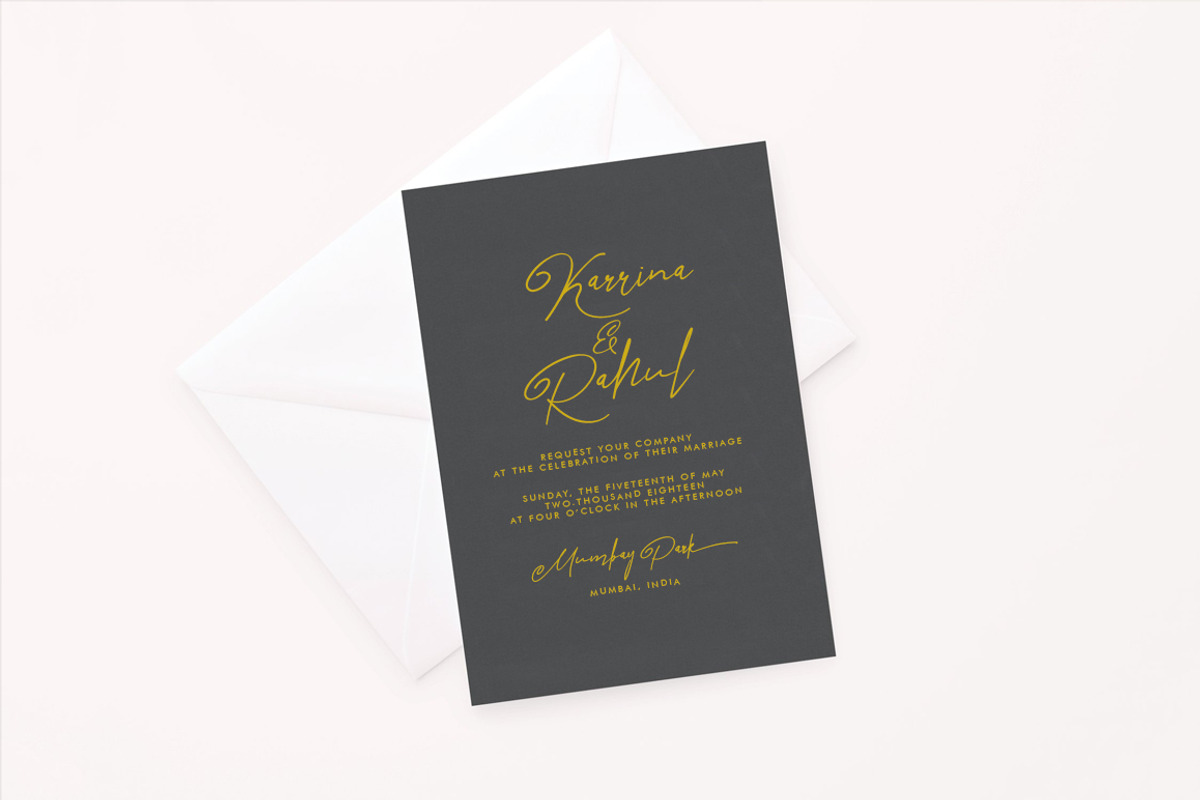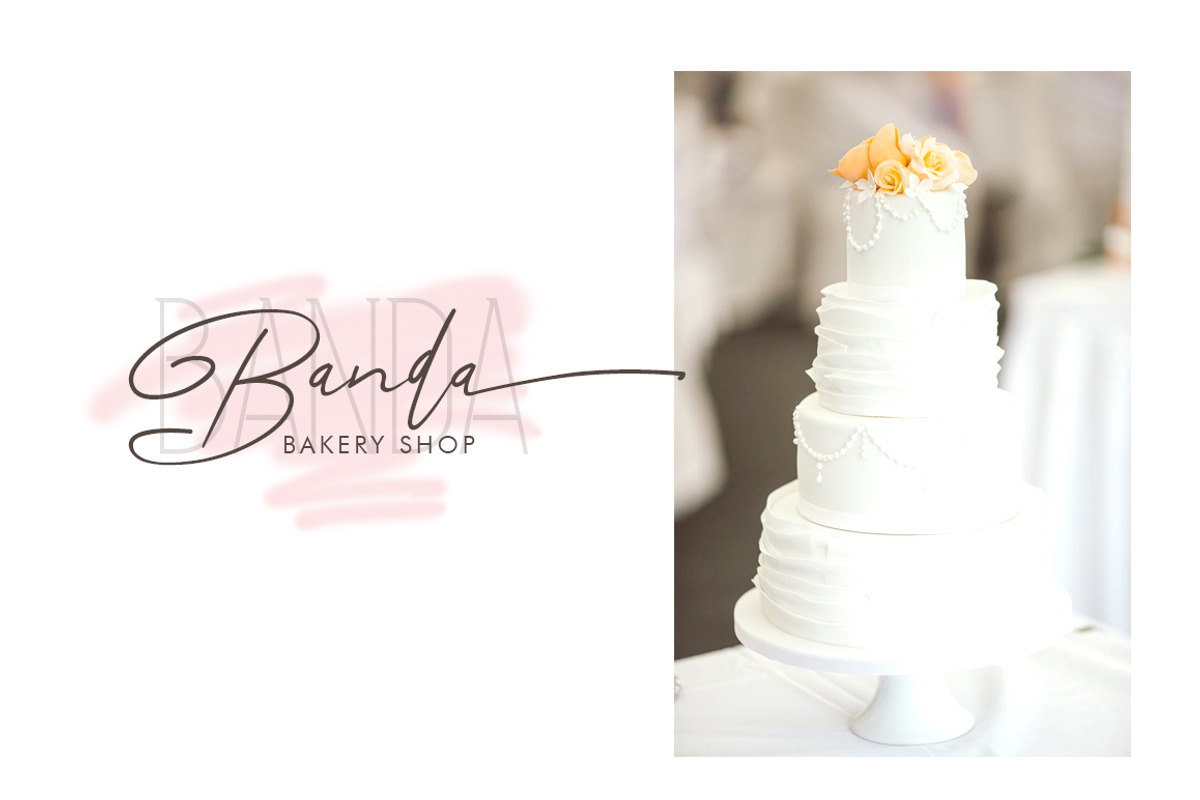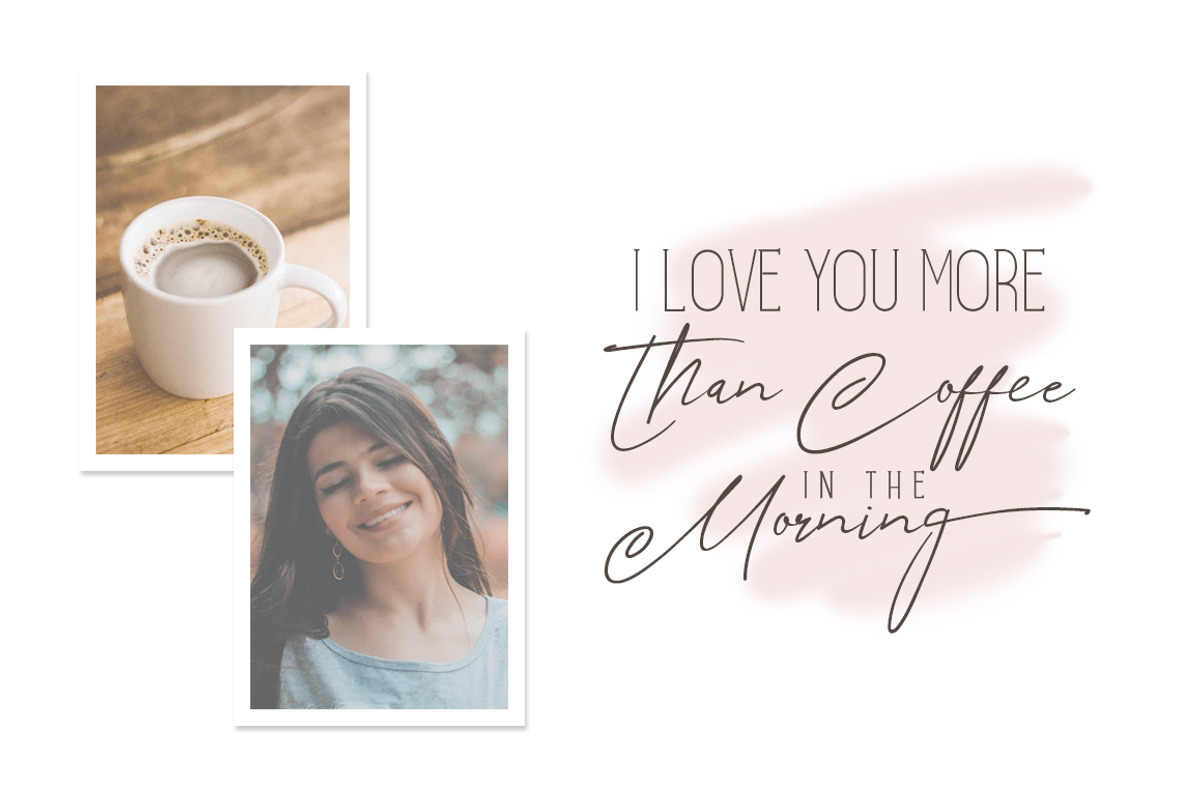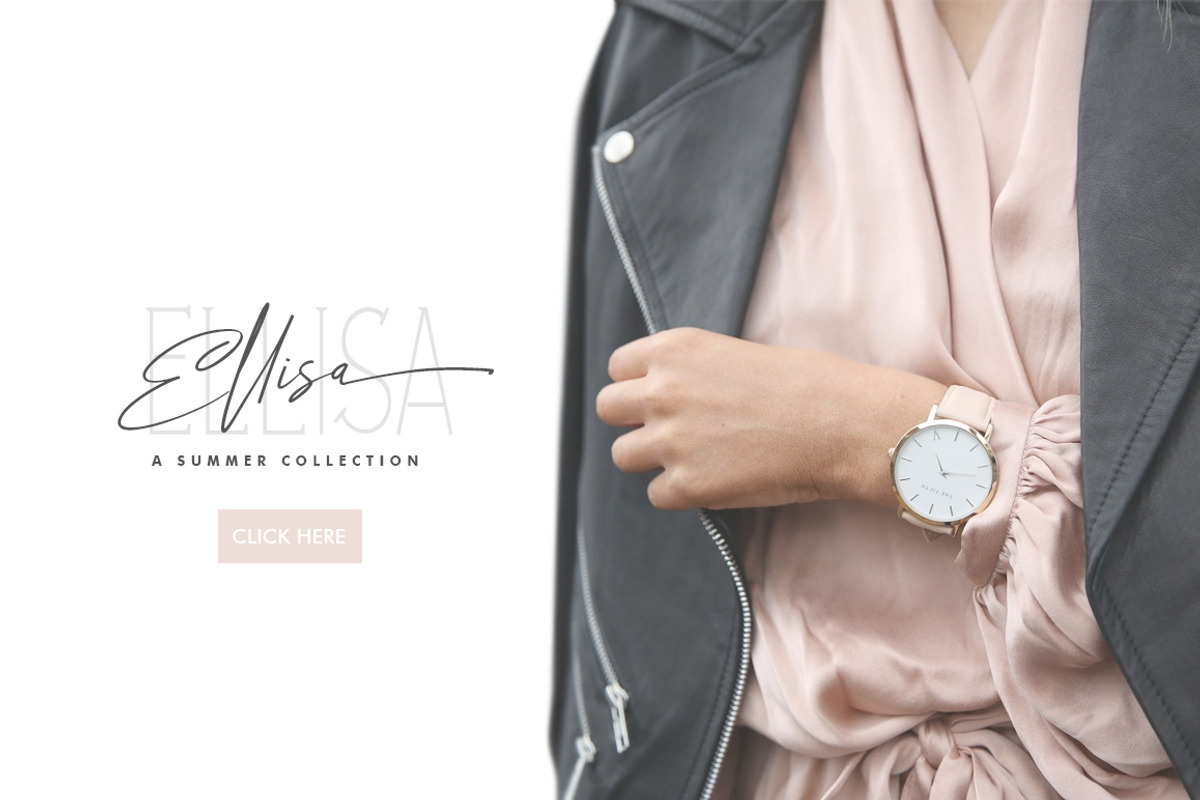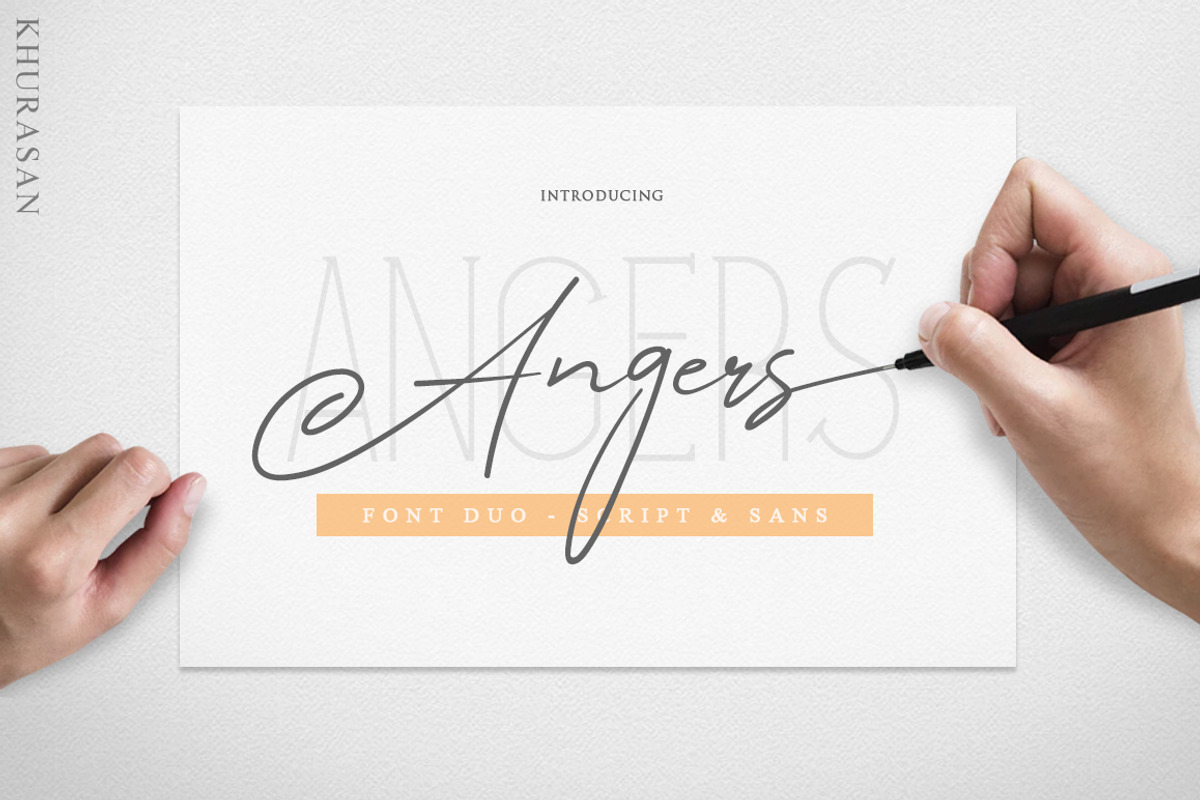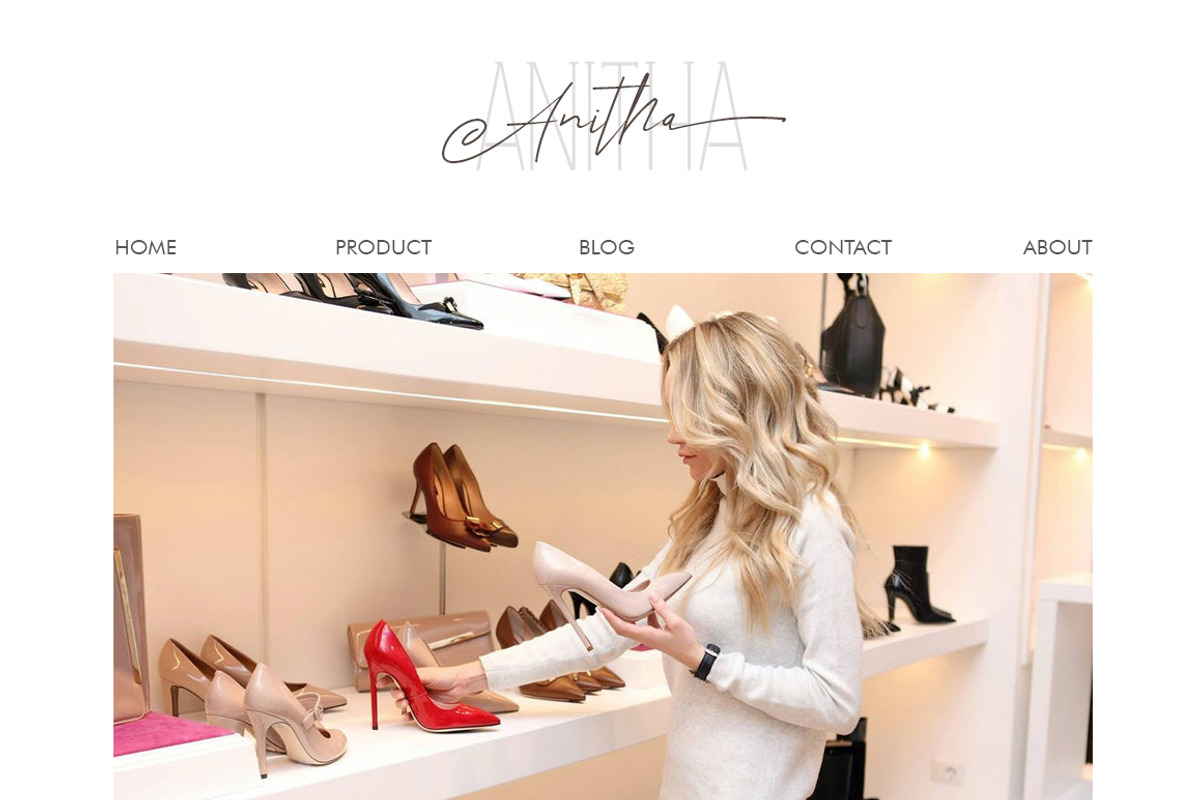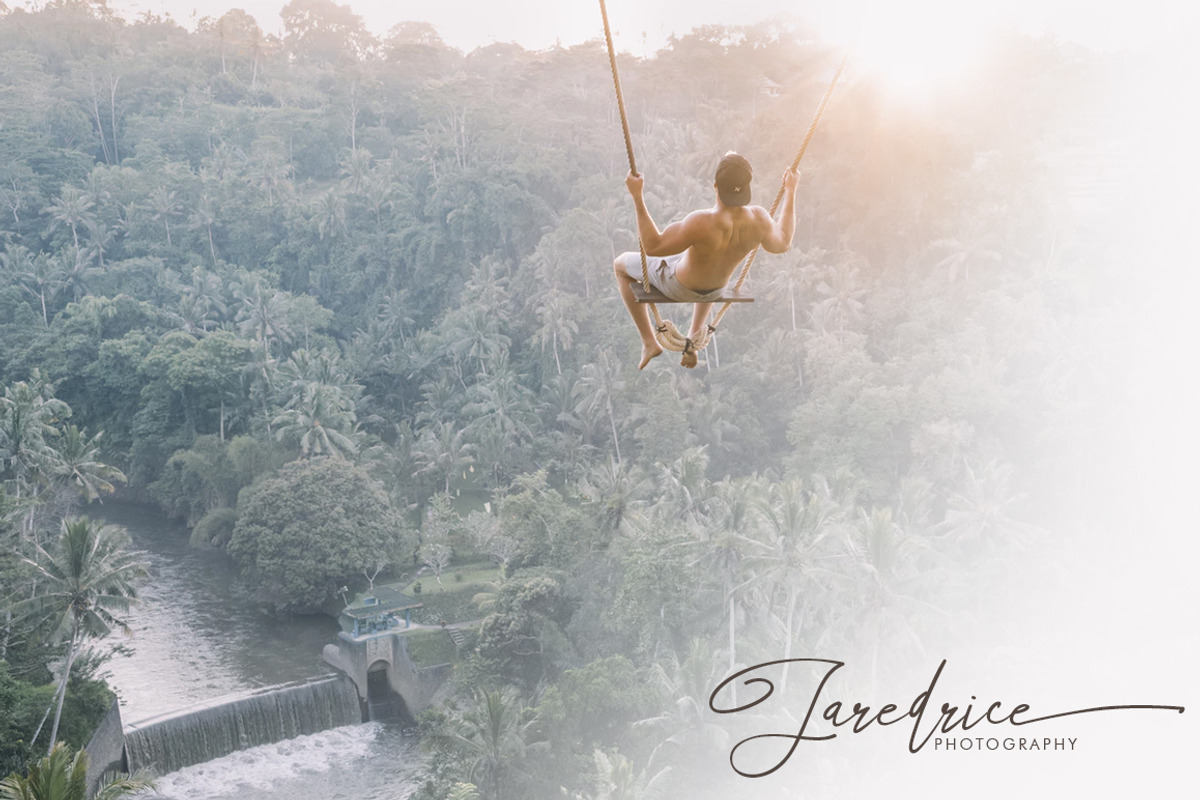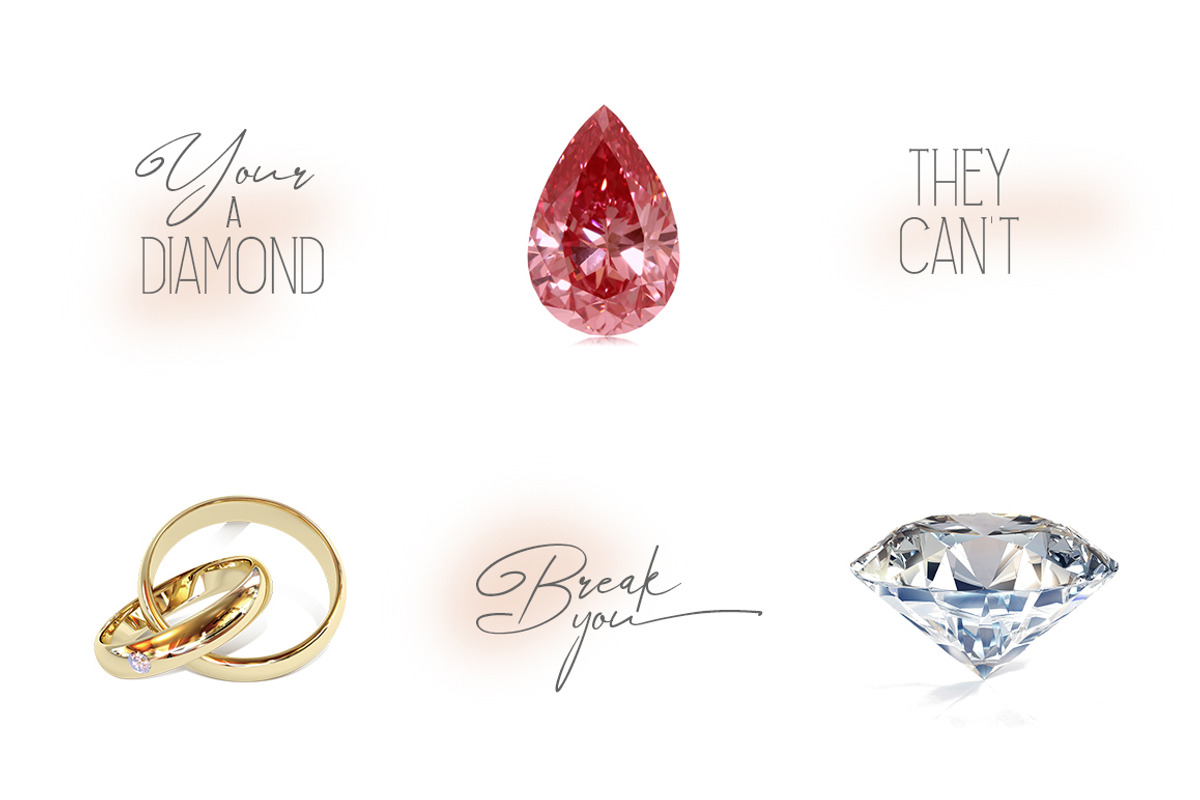
Angers Script Font Duo
Introducing the Angers Script Font Duo, a handwriting script and sans nice font type. Angers font it’s perfect for namecard, poster, logo, magazine, cover, banner, tshirt and headers, or even large-scale artwork...
Multilingual support ÀÁÂÃÄÅÇEÈÉÊËIÌÍÎÏNÑOØÒÓÔÕÖUÙÜÚÛWYÝŸ?ŸÆ
Alternates character with number
You can access alternate with add number 1 after letter. all lowercase have one stylistic alternate.
For example: you can write Angers1 on the tester box
Why Angers Script Font Duo is worth a look
Angers Script Font Duo by khurasan fits naturally into Branding, posters, packaging, typography.